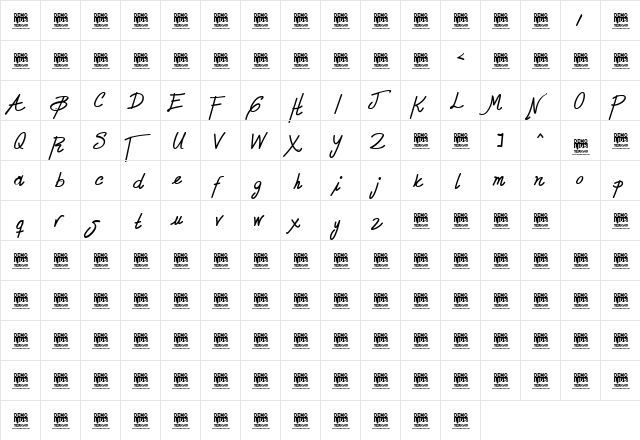
Zule DEMO Script
| Style | Script |
| Foundry | LJ Design Studios |
| Designer | Zulema Ganem, Luis Jaramillo |
Zule DEMO flows with the natural rhythm of handwritten lettering, making it ideal for designs that call for warmth and personal expression.